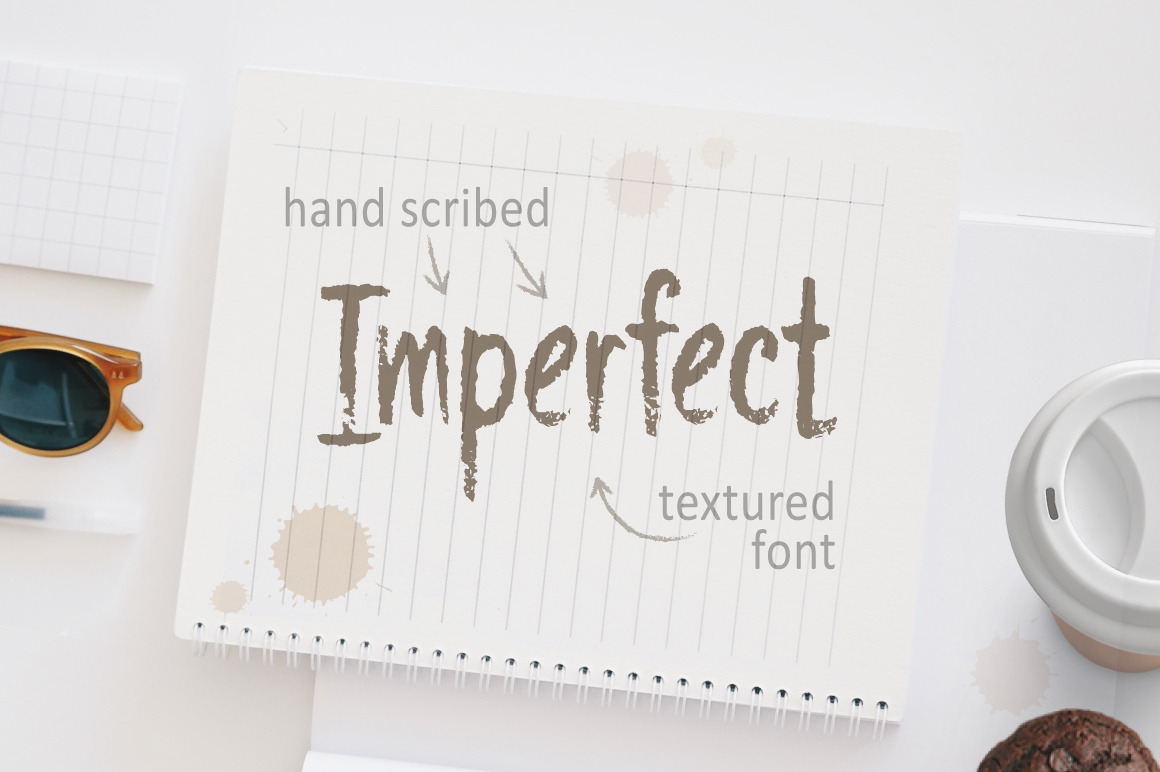
Imperfect Hand Script Textured Font
Imperfect – Hand Scribed Textured Latin Font
Imperfect – a hand scribed font with texture, it looks like written by a marker. This font would be good for posters, quotes, headlines, book covers or anything else where you want to use that rough style font. It has latin characters, numbers and symbols, so you can type in this font whatever you want.